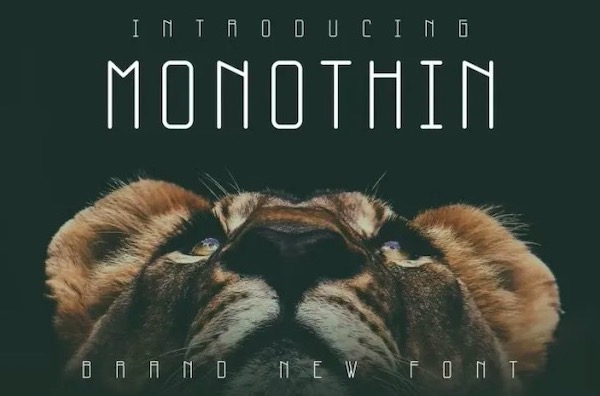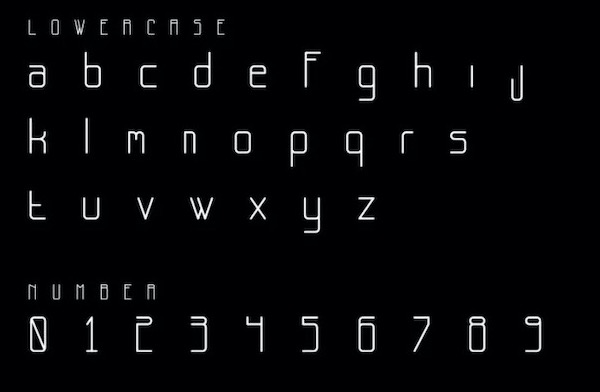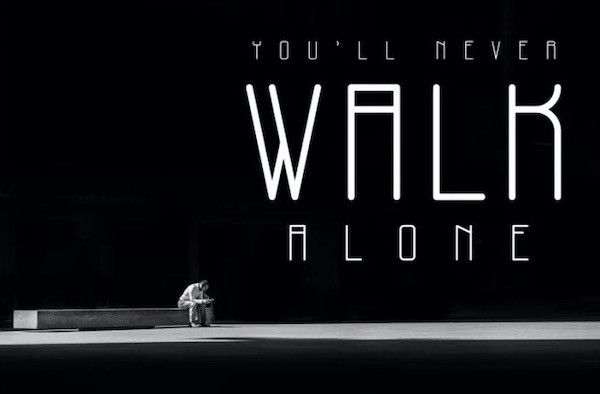
Monothin is a classy modern sans serif font that was created for unique designs that need an elegant touch. This Basic font is perfectly suited on print/screen; it can be used freely for logotypes, e-books, and mobile applications and is especially food for headlines, banners, posters, websites, magazines, etc.
Monothin Sans Serif Font